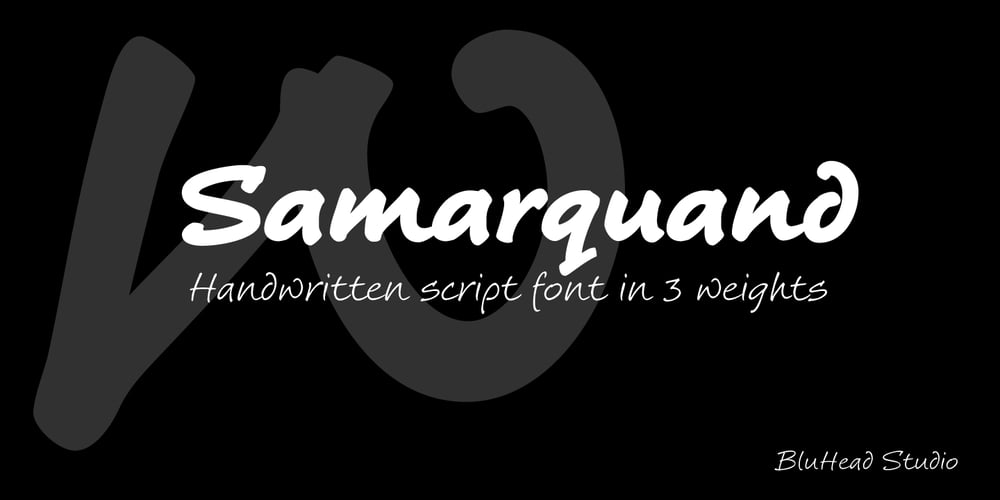
Samarquand Font Family was designed by Roy Preston and published by BluHead Studio. Samarquand contains 3 styles and family package options. Samarquand is a handwritten script design from Roy Preston. Based on the handwriting of a friend, Roy has expanded this friendly, semi-connecting script to include three weights, Light, Regular and Bold, opening up even more design possibilities. The Samarquand fonts support an extended character set, as well as some ligatures, inferior and superior numbers, and unlimited fractions. There are some really nice letterforms in these fonts, particularly that uppercase W! Peruse the posters to see. I’m kind of partial to the Light weight, which is really quite elegant in use, but that Bold can really make a strong statement! Samarquand. Check it out for yourself.